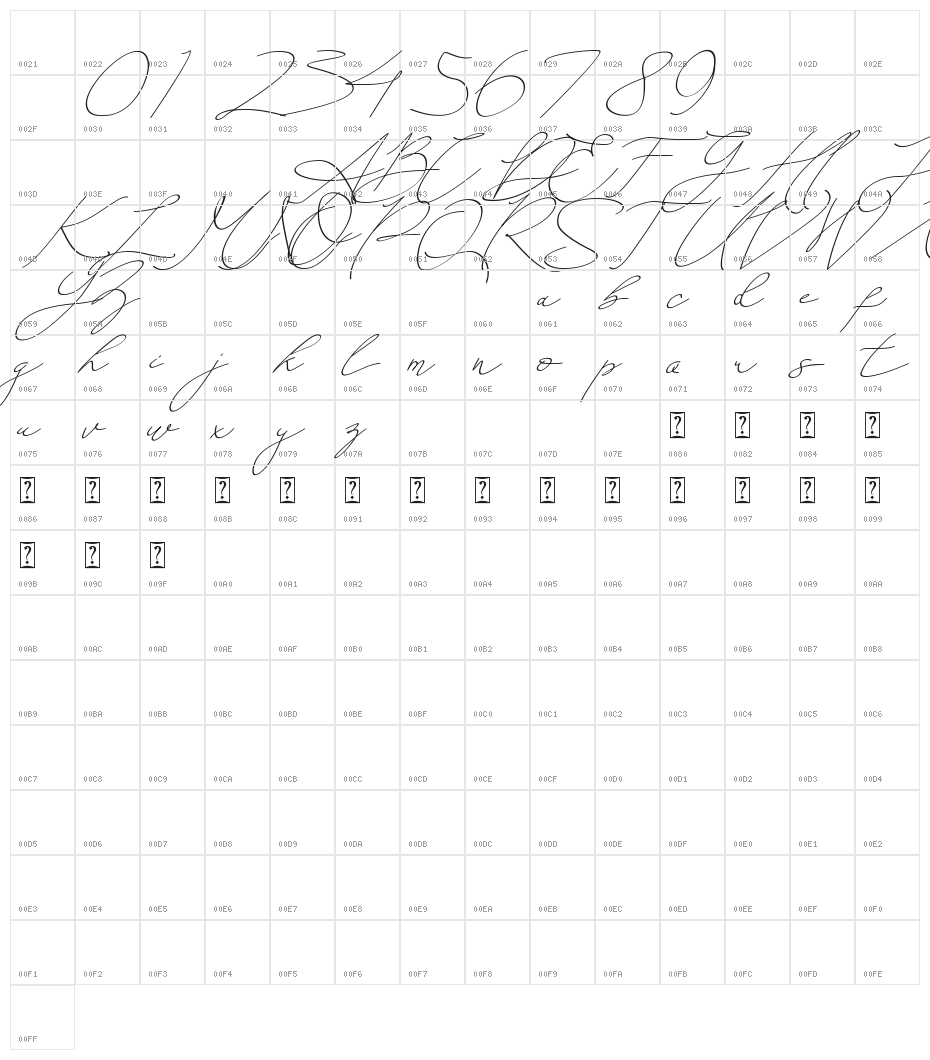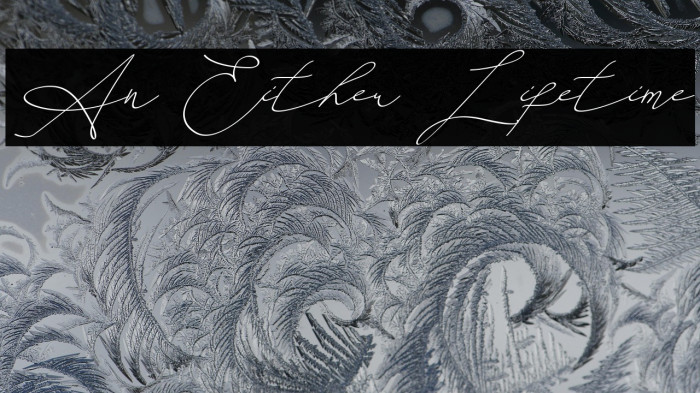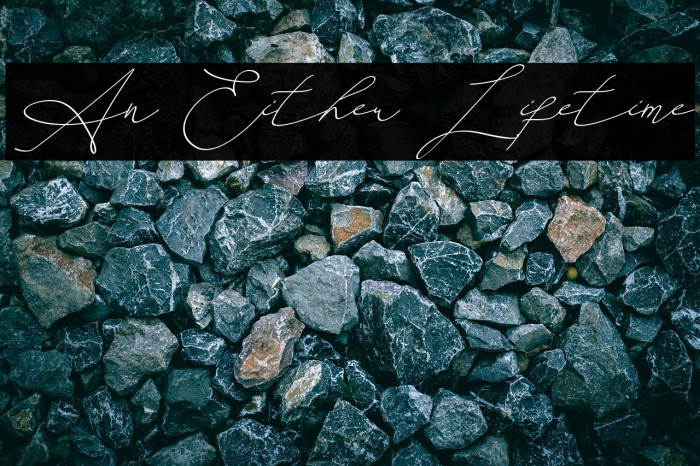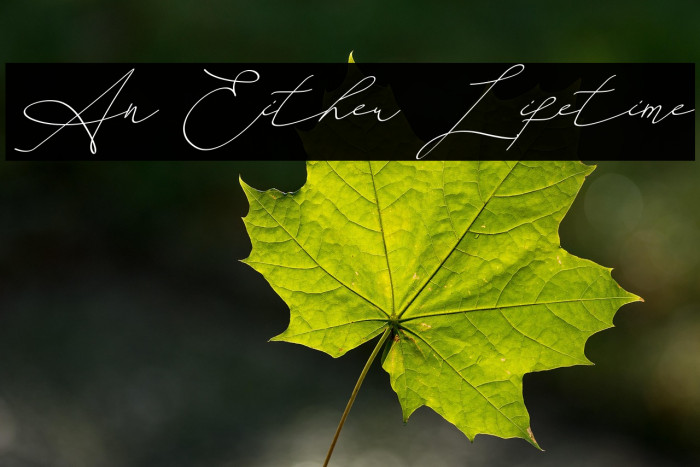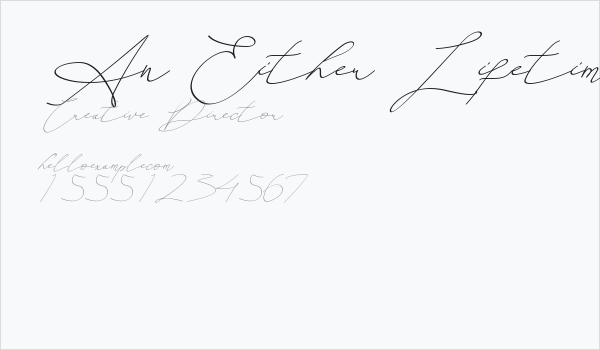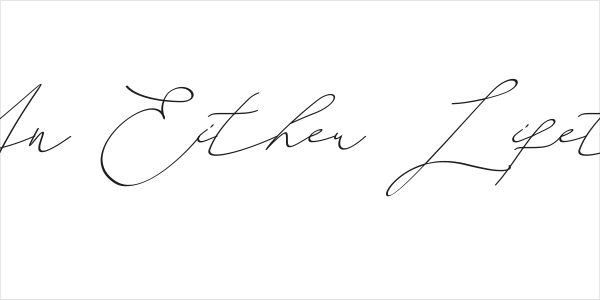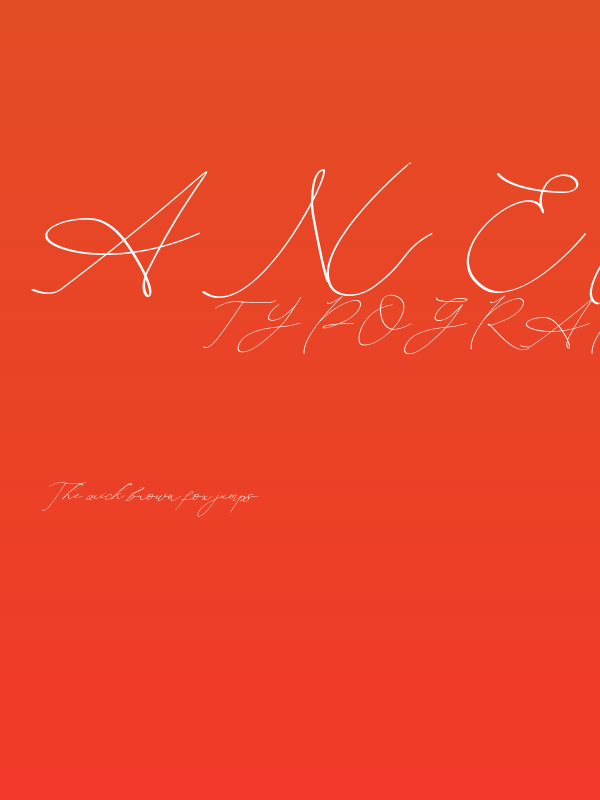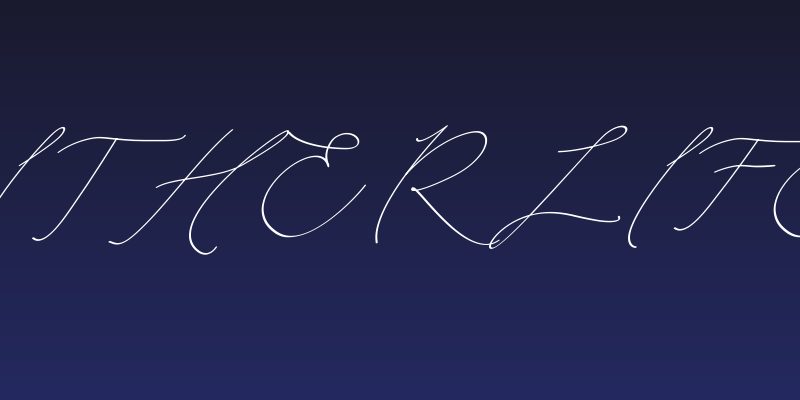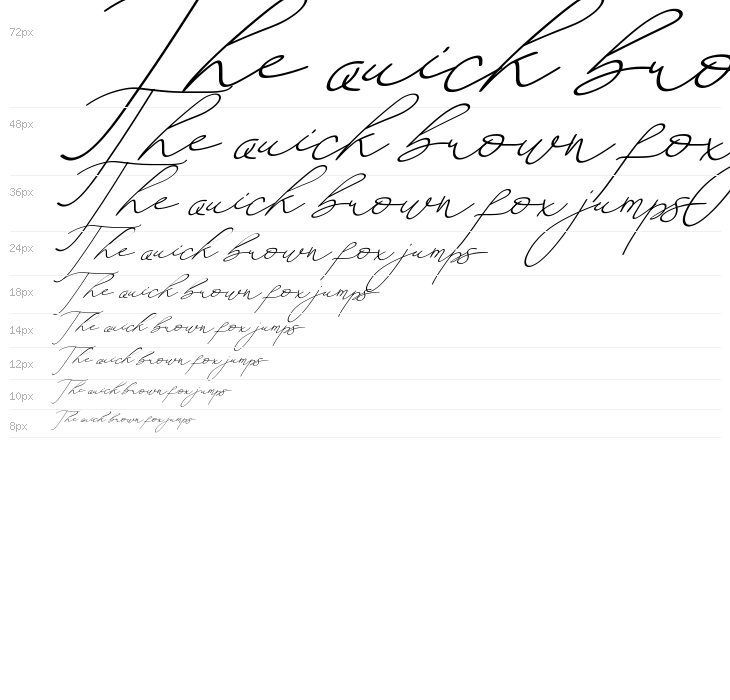
An Either Lifetime Font
An Either Lifetime Description
This font exhibits a delicate and flowing script style, characterized by its elegant and cursive letterforms. The uppercase letters maintain a consistent height and are slightly slanted, adding a sense of movement and grace. The lowercase letters are intricately connected, enhancing the fluidity and continuity of the text. The numerals are designed in a similar cursive style, maintaining the overall aesthetic. This font is ideal for projects that require a touch of sophistication and elegance, such as wedding invitations, formal event programs, or high-end branding materials.
| Proposed Projects | Wedding invitations, formal event programs, high-end branding materials. |